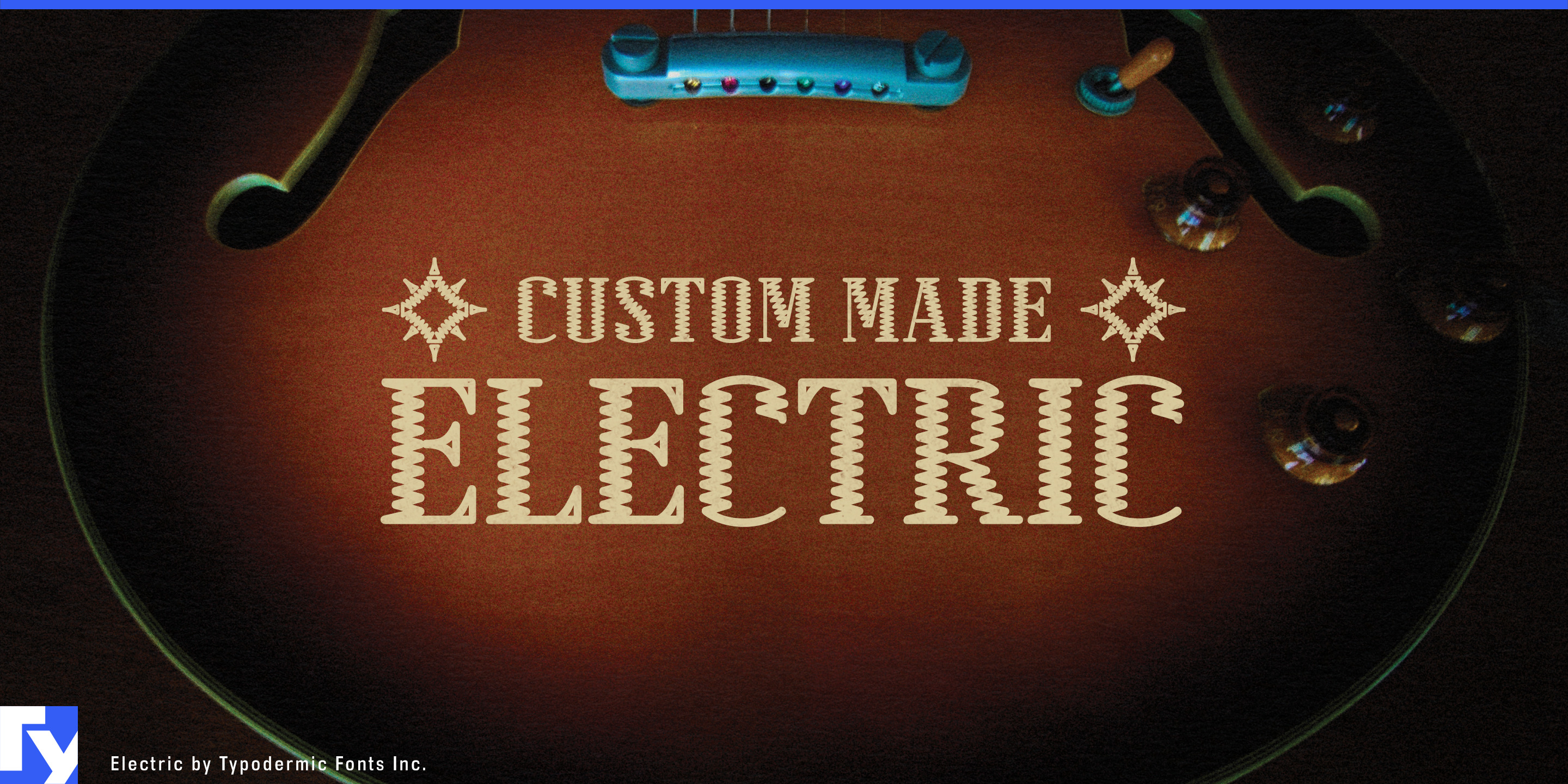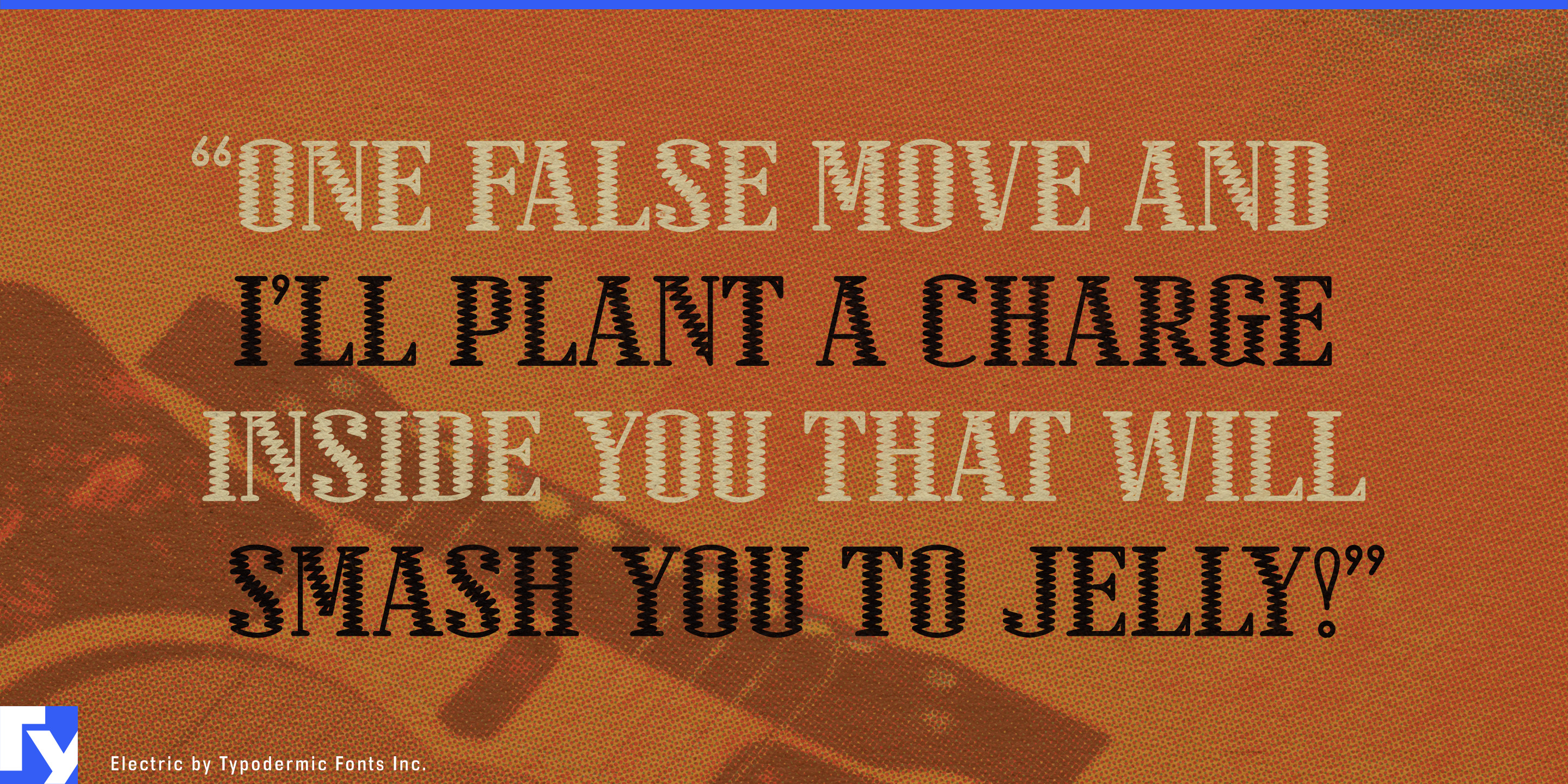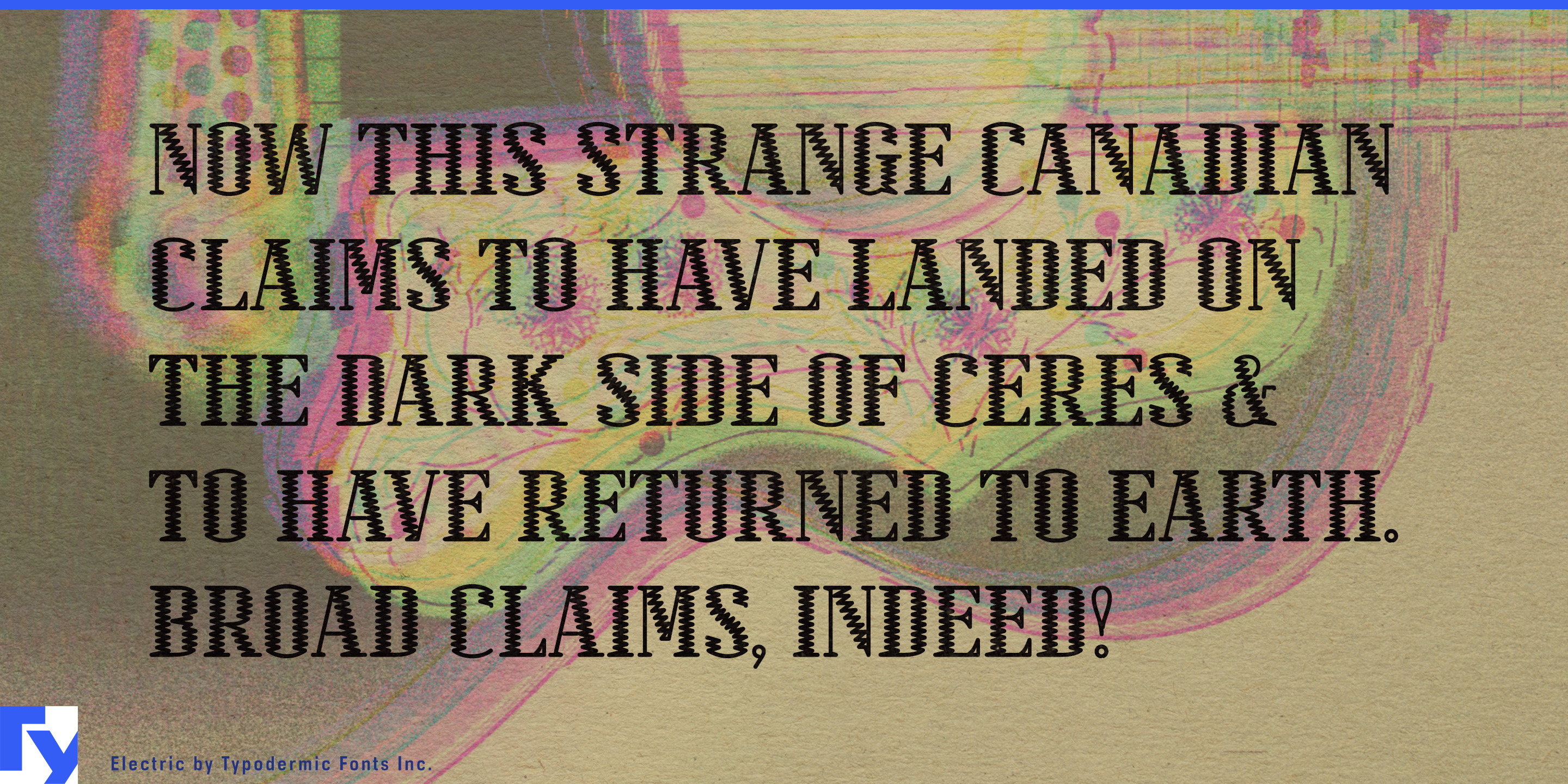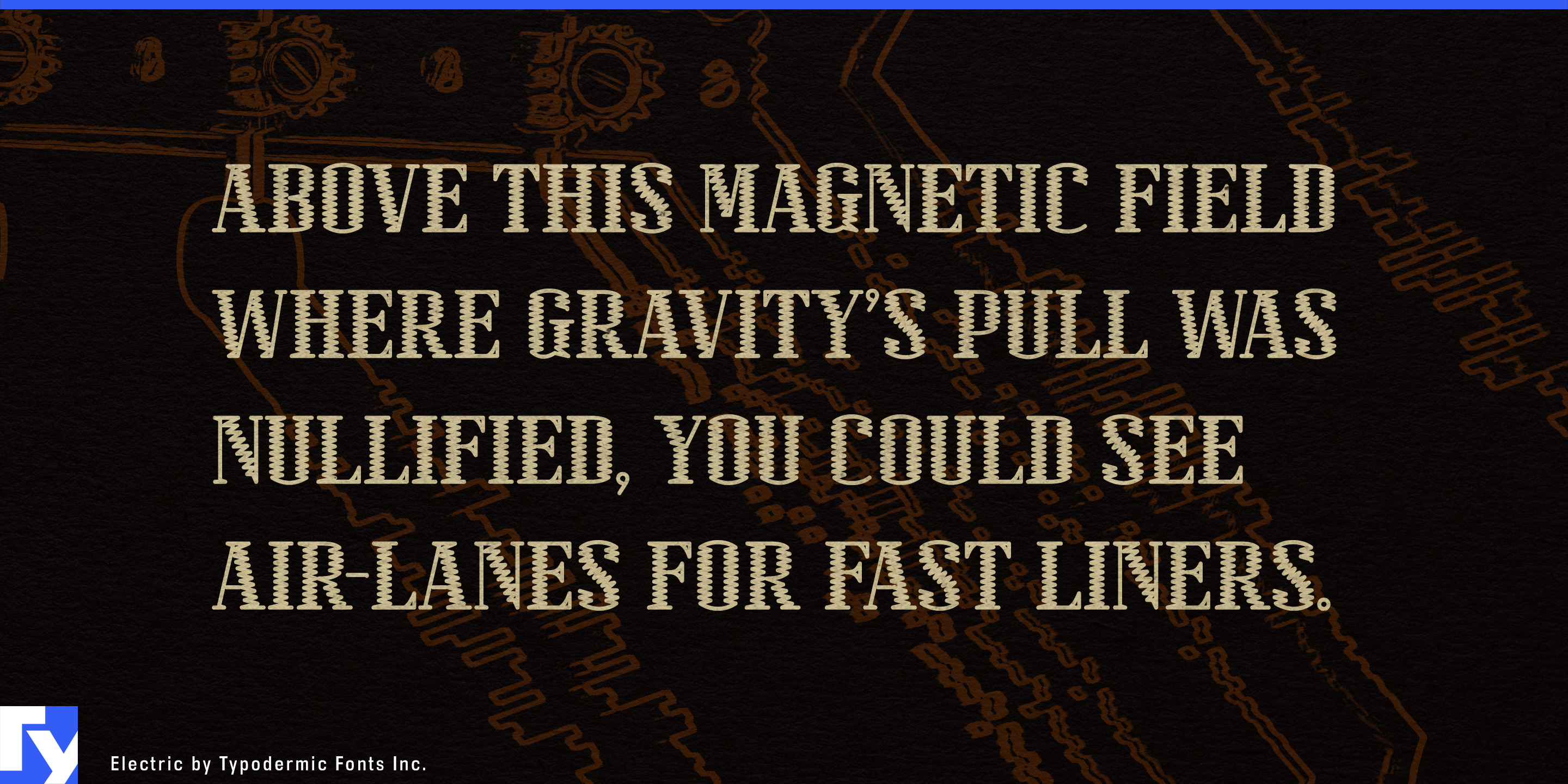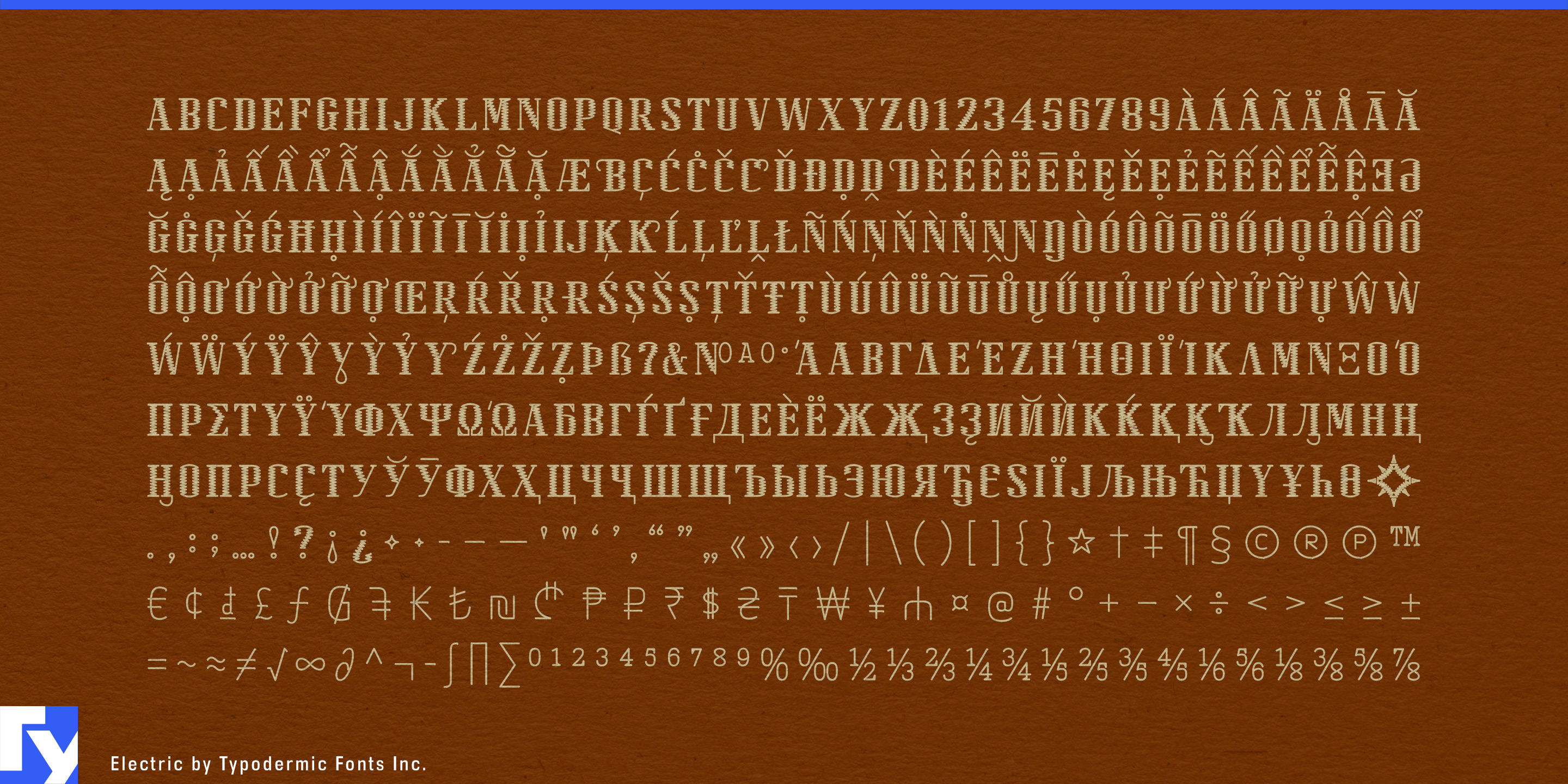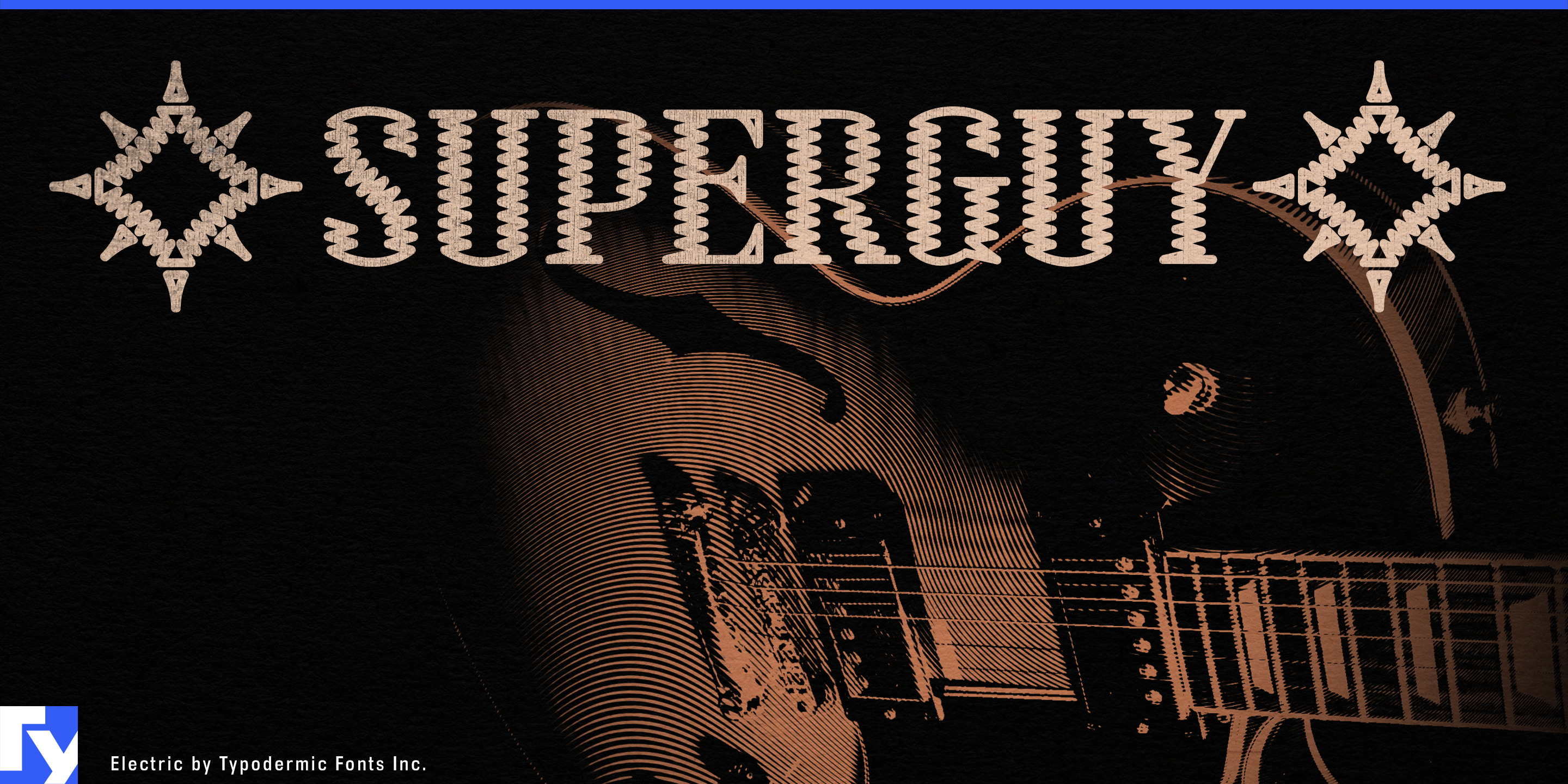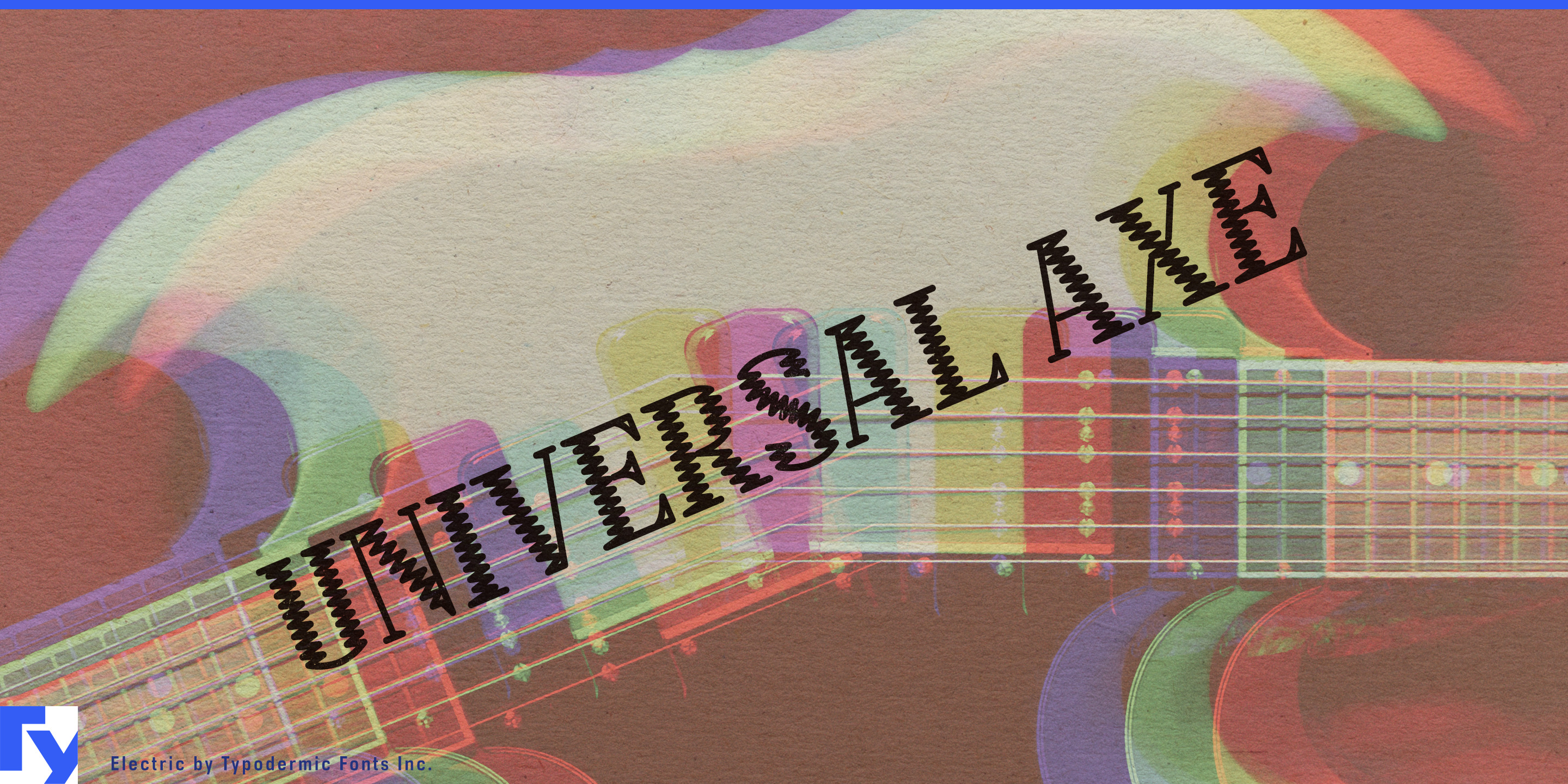
The Electric typeface was sparked by the Gibson custom electric guitar nameplates of the 1960s. Way back in olden times, when Gibson dealers swapped a standard stoptail for a Bigsby vibrato tailpiece, two bolt holes remained. Sometimes they would cover these holes with a “Custom Made” nameplate. It was made of black plastic and engraved using a pantograph router with an oddball zig-zag pattern font and a pair starburst symbols. You can use the lozenge symbol ◊ to recreate the original starburst symbol. This iconic guitar-themed typeface will convey your message in a distinctive manner. Most Latin-based European, Vietnamese, Greek, and most Cyrillic-based writing systems are supported, including the following languages. Afaan Oromo, Afar, Afrikaans, Albanian, Alsatian, Aromanian, Aymara, Azerbaijani, Bashkir, Bashkir (Latin), Basque, Belarusian, Belarusian (Latin), Bemba, Bikol, Bosnian, Breton, Bulgarian, Buryat, Cape Verdean, Creole, Catalan, Cebuano, Chamorro, Chavacano, Chichewa, Crimean Tatar (Latin), Croatian, Czech, Danish, Dawan, Dholuo, Dungan, Dutch, English, Estonian, Faroese, Fijian, Filipino, Finnish, French, Frisian, Friulian, Gagauz (Latin), Galician, Ganda, Genoese, German, Gikuyu, Greenlandic, Guadeloupean Creole, Haitian Creole, Hawaiian, Hiligaynon, Hungarian, Icelandic, Igbo, Ilocano, Indonesian, Irish, Italian, Jamaican, Kaingang, Khalkha, Kalmyk, Kanuri, Kaqchikel, Karakalpak (Latin), Kashubian, Kazakh, Kikongo, Kinyarwanda, Kirundi, Komi-Permyak, Kurdish, Kurdish (Latin), Kyrgyz, Latvian, Lithuanian, Lombard, Low Saxon, Luxembourgish, Maasai, Macedonian, Makhuwa, Malay, Maltese, Māori, Moldovan, Montenegrin, Nahuatl, Ndebele, Neapolitan, Norwegian, Novial, Occitan, Ossetian (Latin), Papiamento, Piedmontese, Polish, Portuguese, Quechua, Rarotongan, Romanian, Romansh, Russian, Rusyn, Sami, Sango, Saramaccan, Sardinian, Scottish Gaelic, Serbian, Serbian (Latin), Shona, Sicilian, Silesian, Slovak, Slovenian, Somali, Sorbian, Sotho, Spanish, Swahili, Swazi, Swedish, Tagalog, Tahitian, Tajik, Tatar, Tetum, Tongan, Tshiluba, Tsonga, Tswana, Tumbuka, Turkish, Turkmen (Latin), Tuvaluan, Ukrainian, Uzbek, Uzbek (Latin), Venda, Venetian, Vepsian, Vietnamese, Võro, Walloon, Waray-Waray, Wayuu, Welsh, Wolof, Xavante, Xhosa, Yapese, Zapotec, Zarma, Zazaki, Zulu and Zuni.